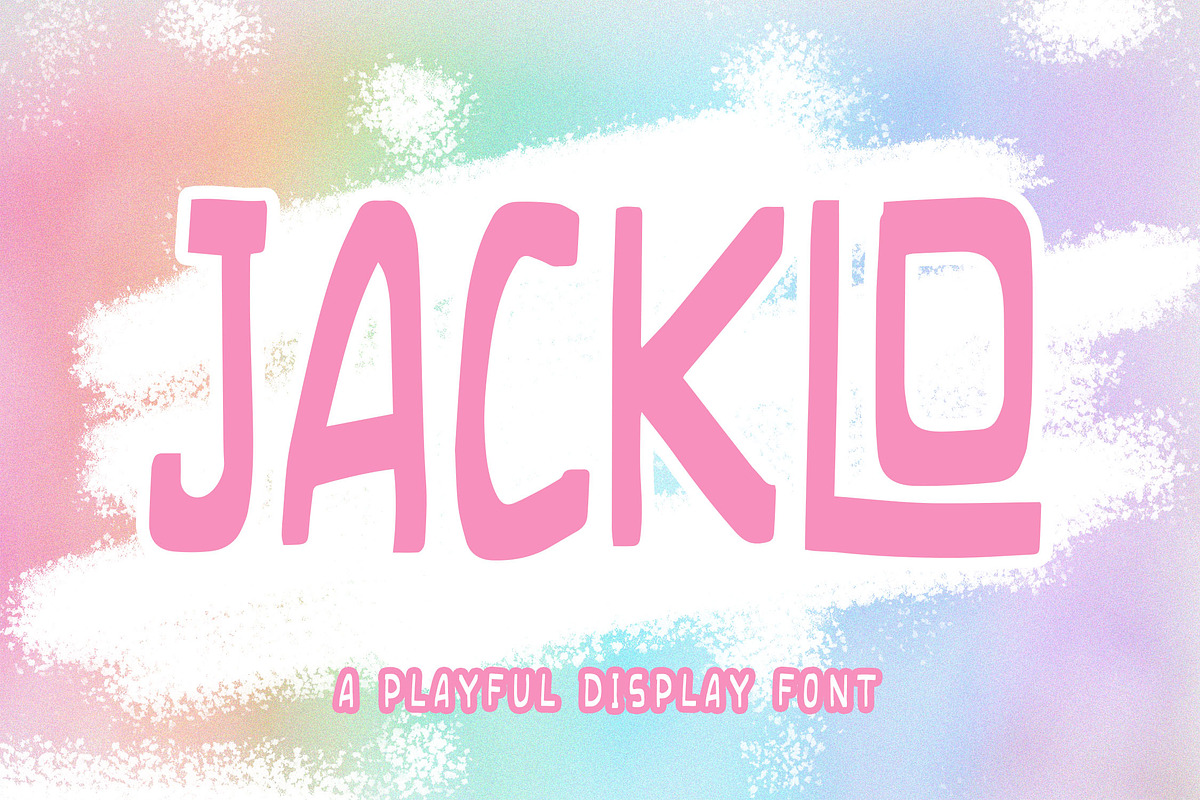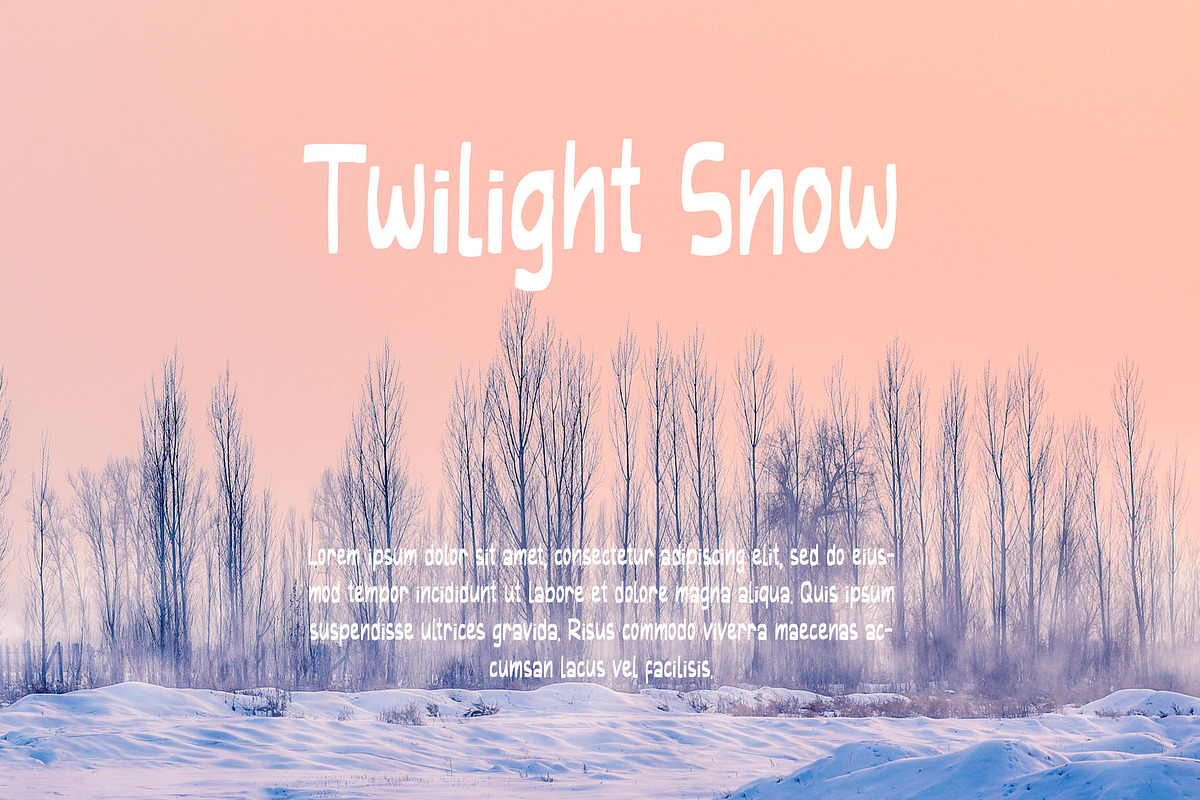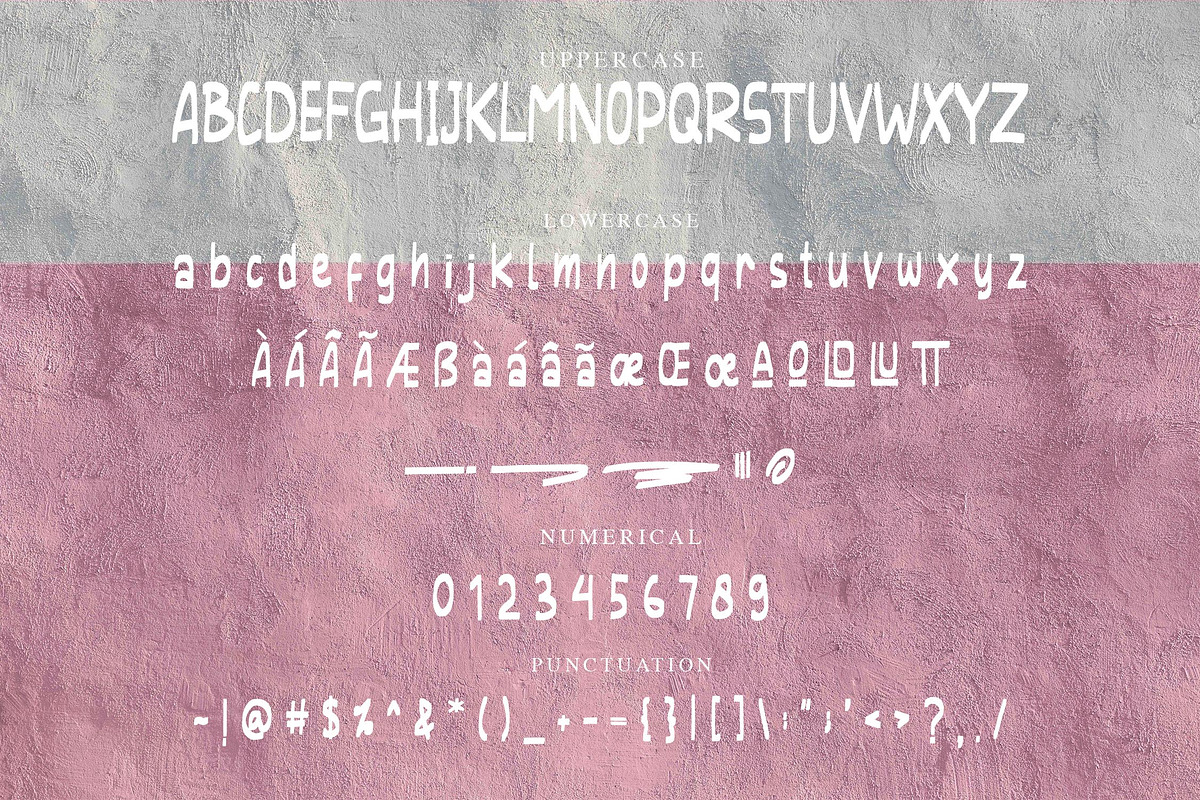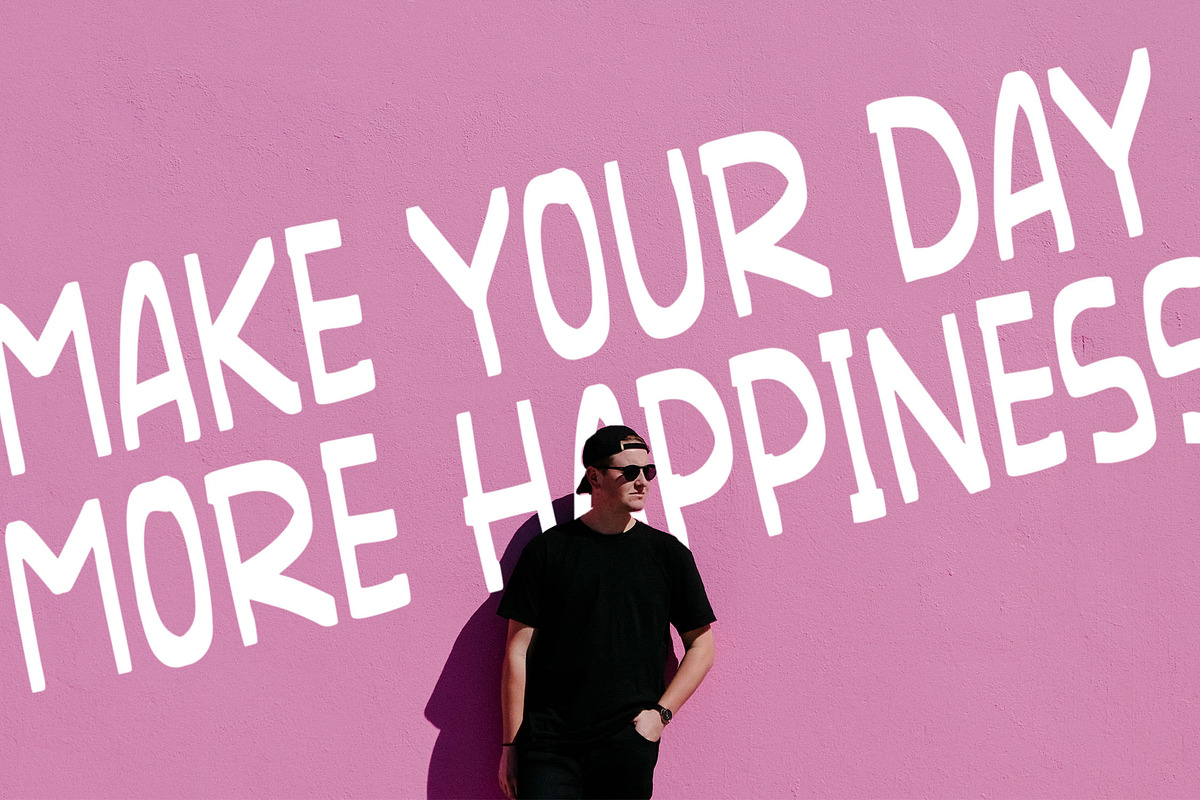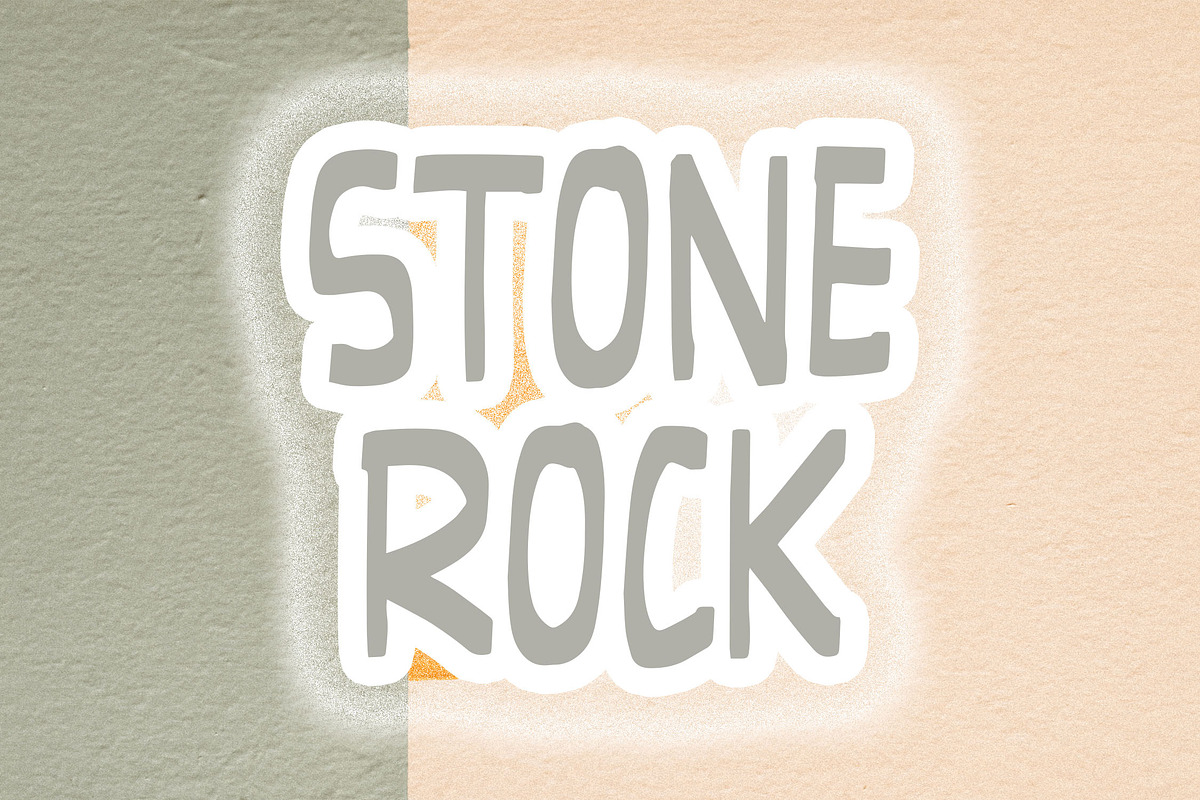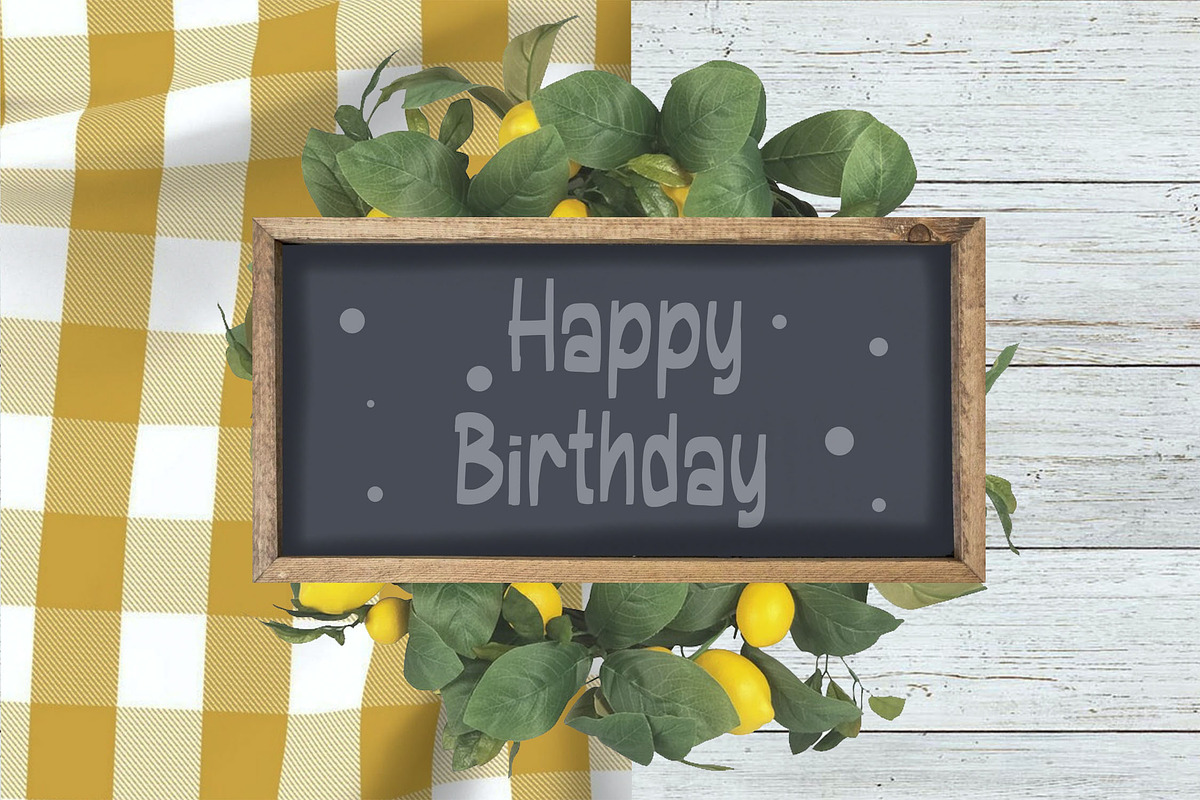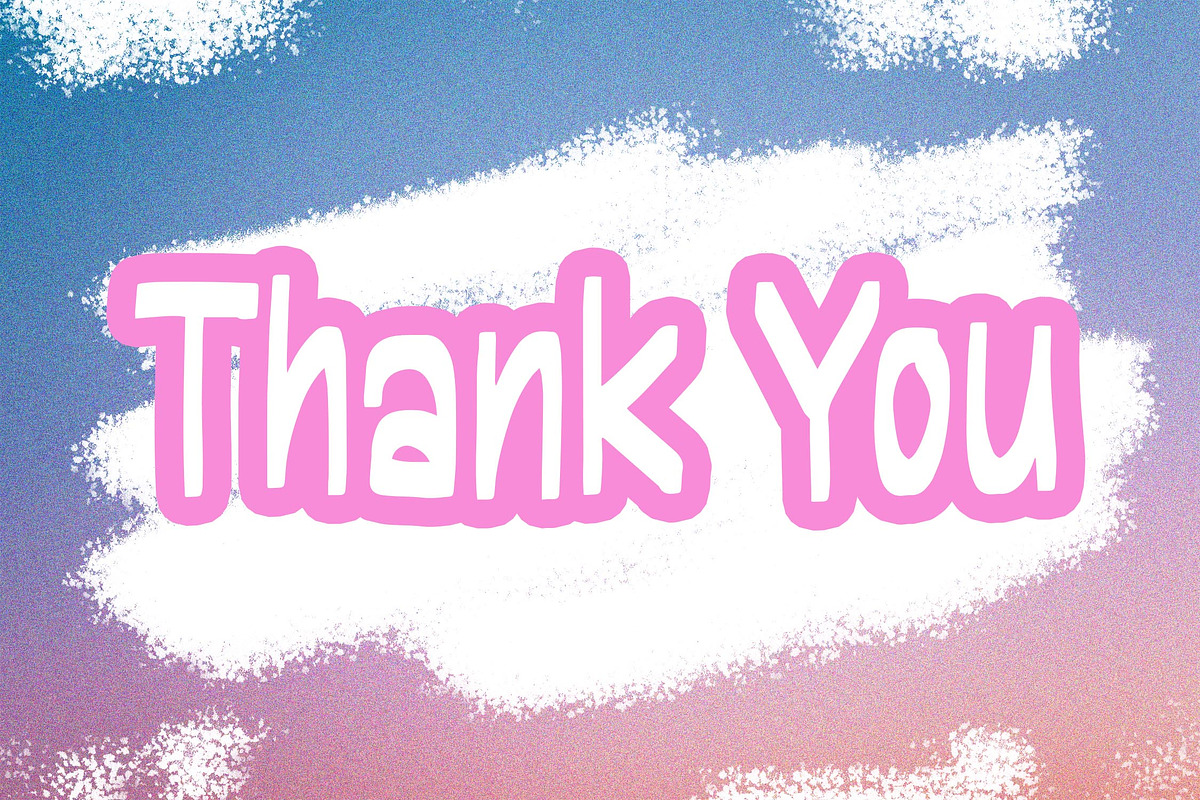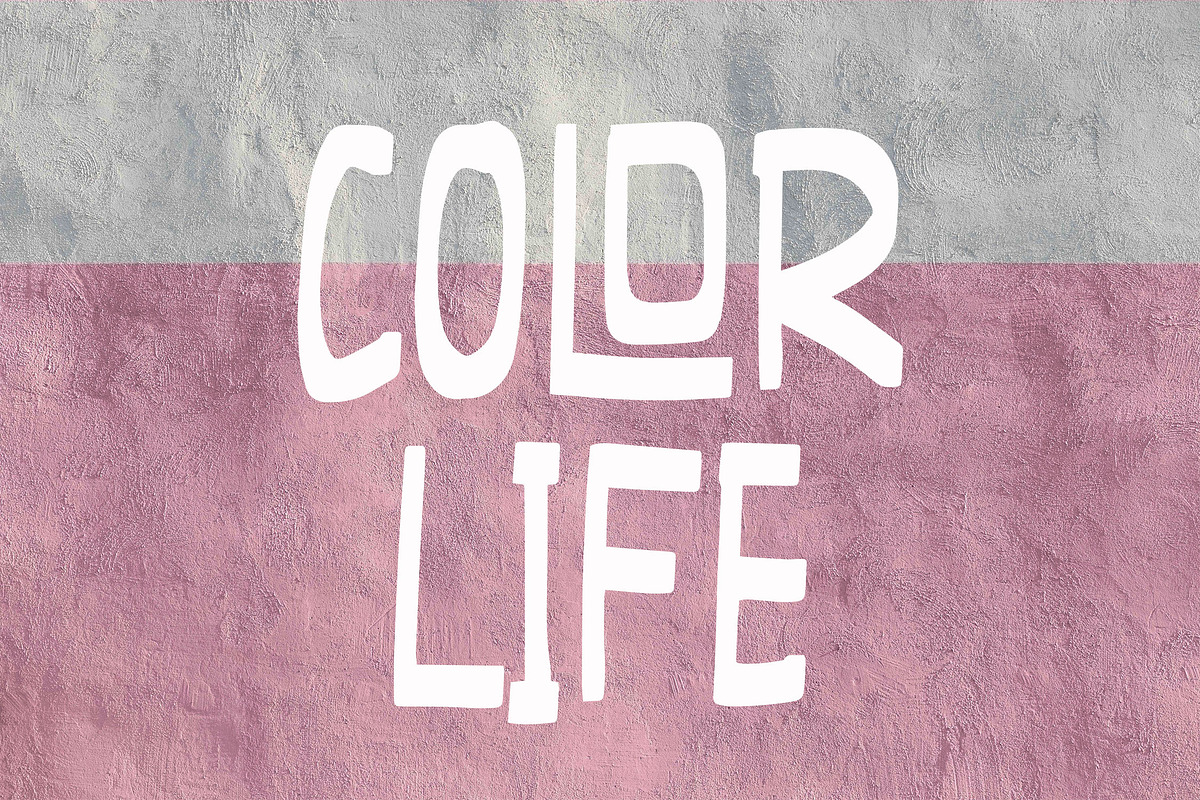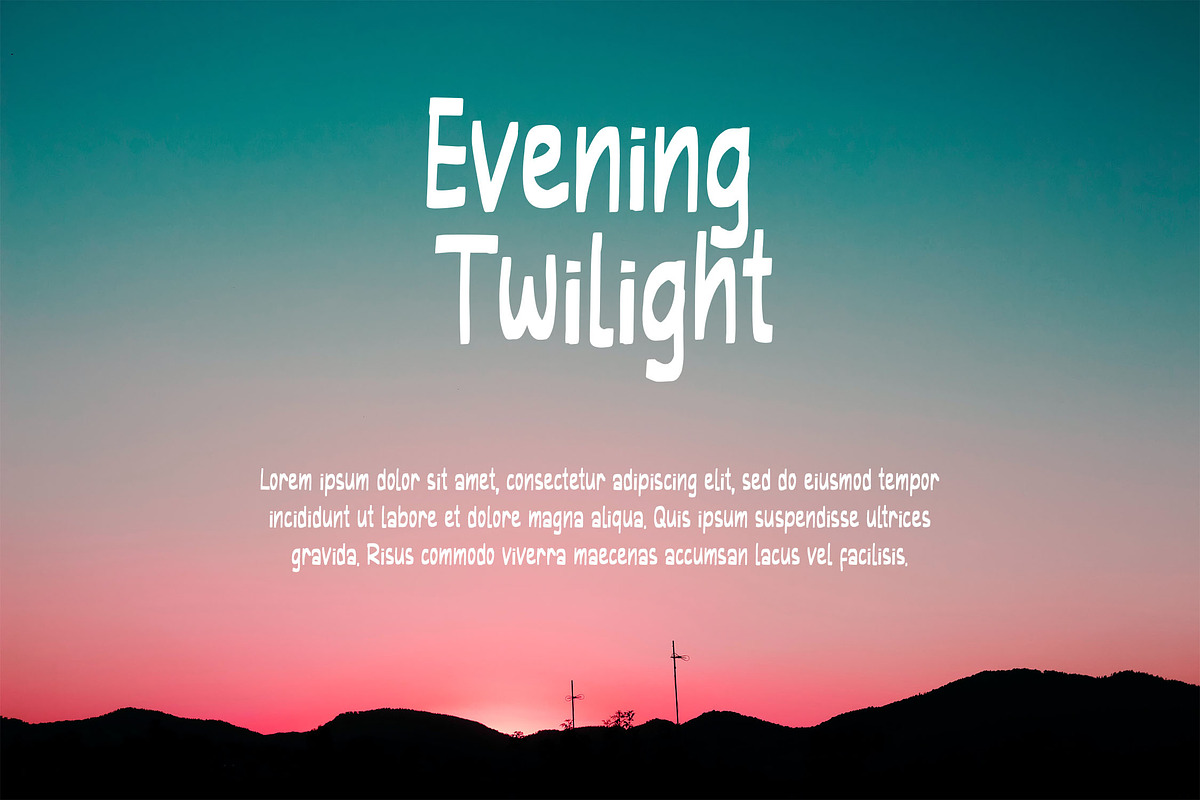
JACKLO - Playful Font
JACKLO is a playful display font with a handwritten style. Is a font style that is made with scratches handwritten shapes font characters are very beautiful. Can be applied to support the graphic appearance of the product to be more attractive and unique. This font is very nice for making previews and children's book covers designs, logos, shirts, and other graphic needs.
- Stylistic Alternate